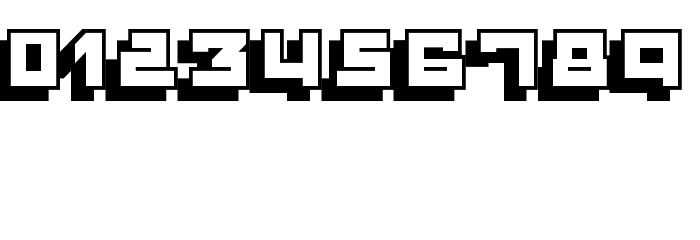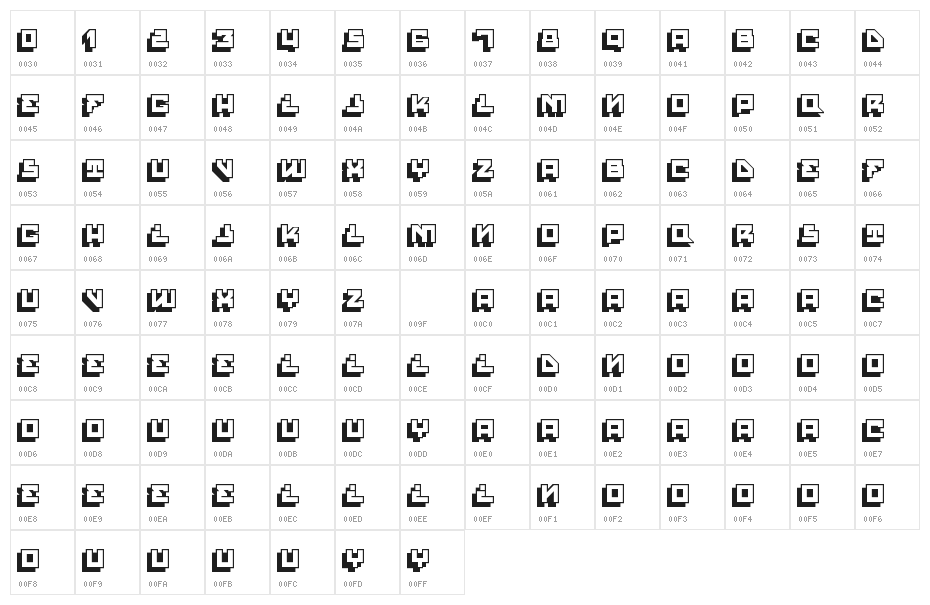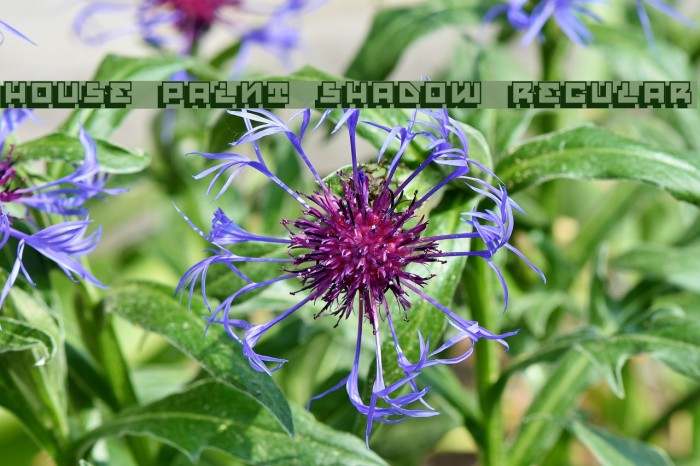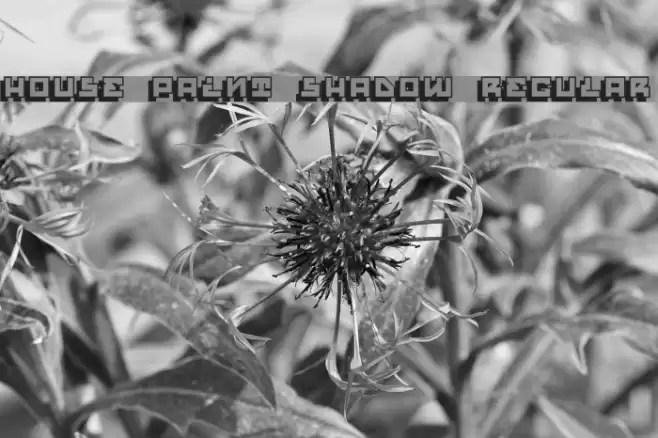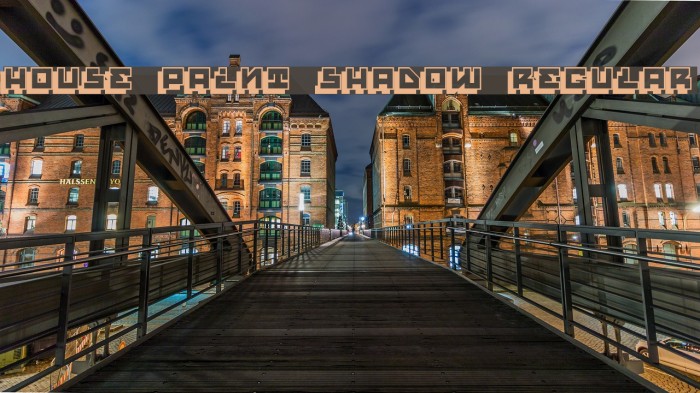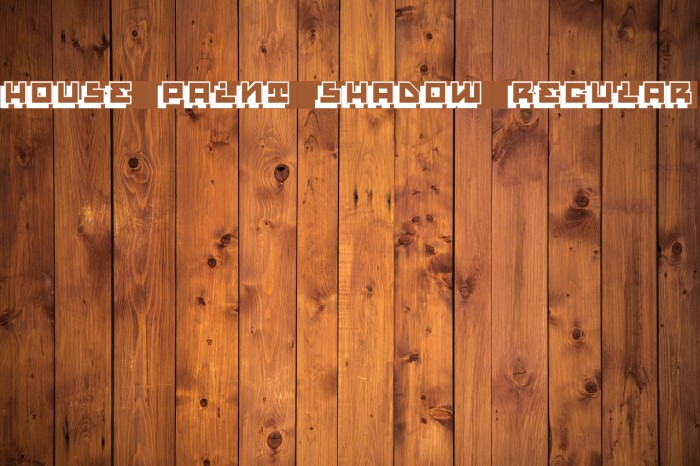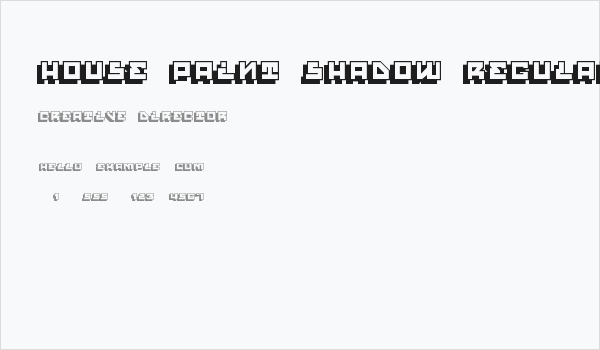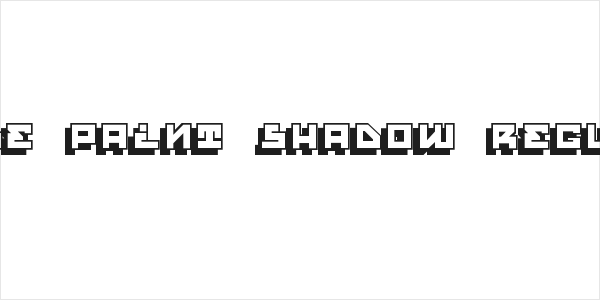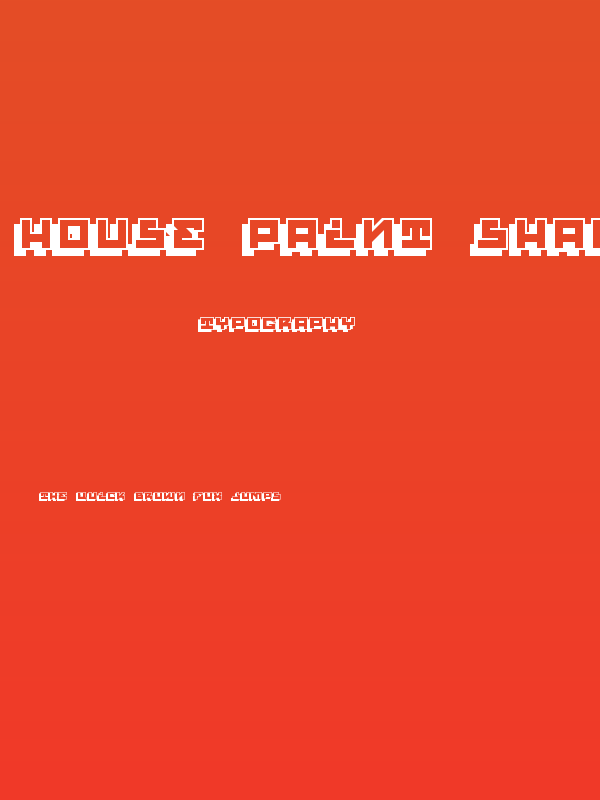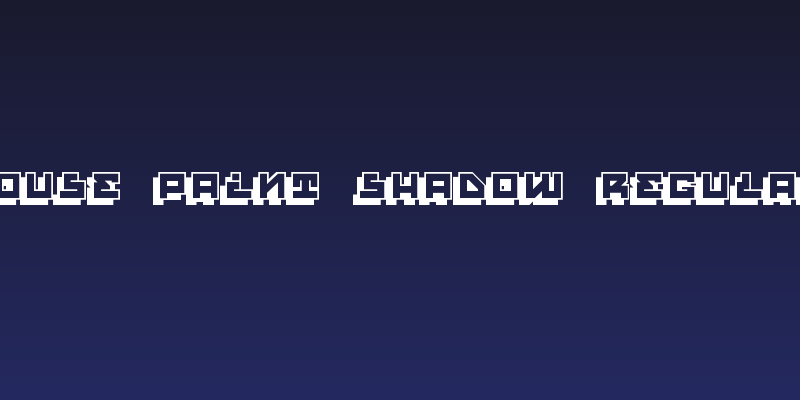
House Paint Shadow Regular Font
House Paint Shadow Regular Description
This font features a bold, geometric design with a distinct shadow effect that gives it a three-dimensional appearance. The characters are blocky and angular, with sharp edges and a consistent thickness throughout. The shadow adds depth and makes the letters stand out, creating a striking visual impact. The uppercase and lowercase letters maintain a uniform style, while the numerals and special characters complement the overall aesthetic. This font is ideal for projects that require a strong, attention-grabbing typeface with a modern and edgy feel.
| Proposed Projects | Ideal for posters, headlines, logos, and any design requiring a bold, impactful typeface. |